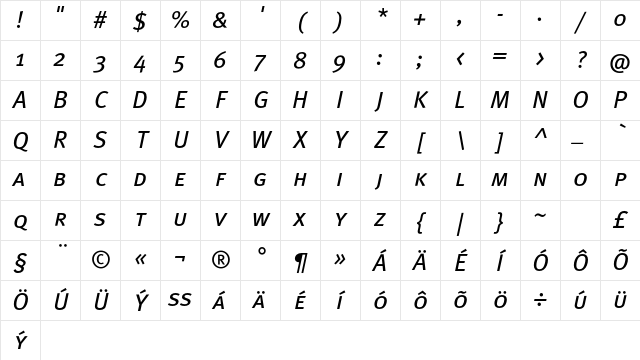
MetaBookCE ItalicCaps Free Font
MetaBookCE ItalicCaps
Style: ItalicCaps
Design Context for MetaBookCE
MetaBookCE is a composed and adaptable typeface that performs quietly and consistently across a wide range of design contexts. The slanted form adds forward momentum and visual energy.